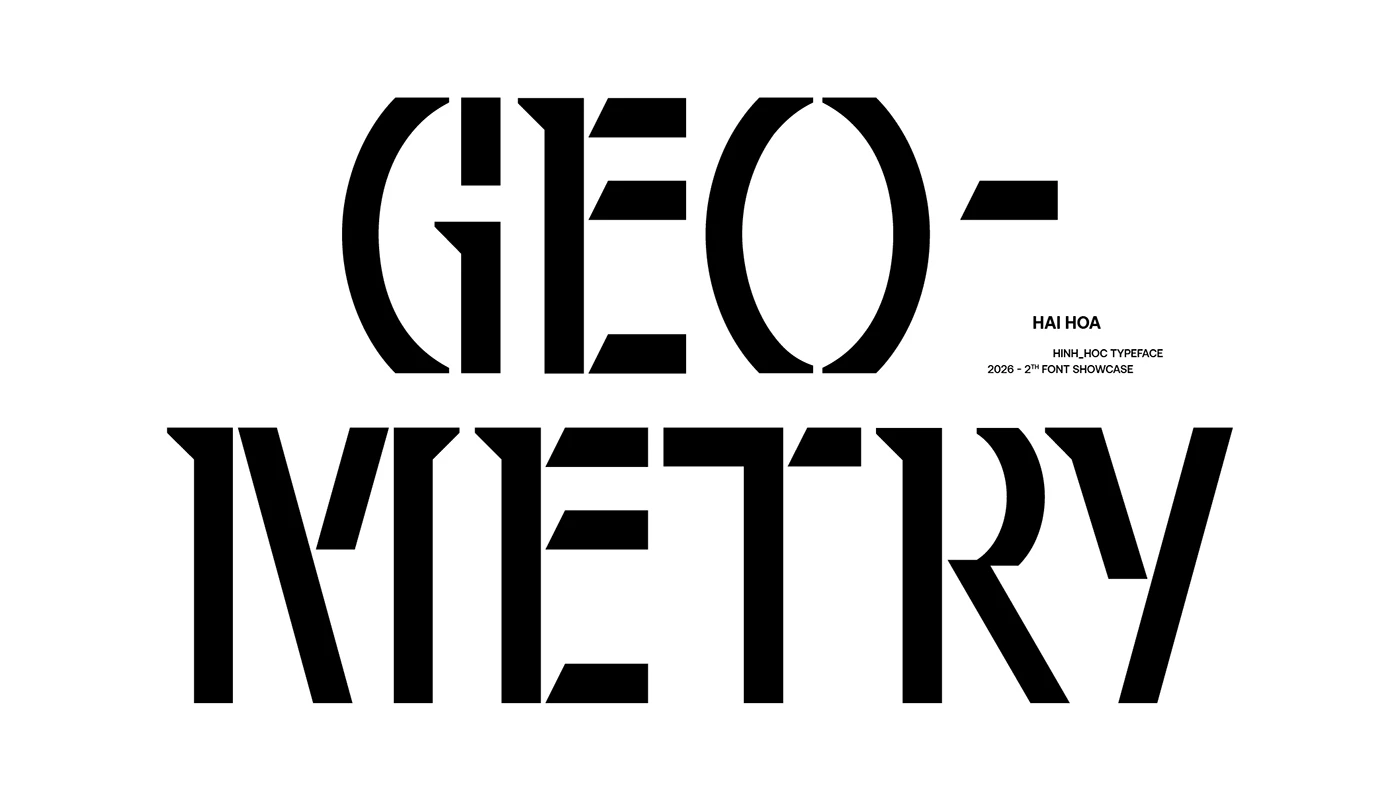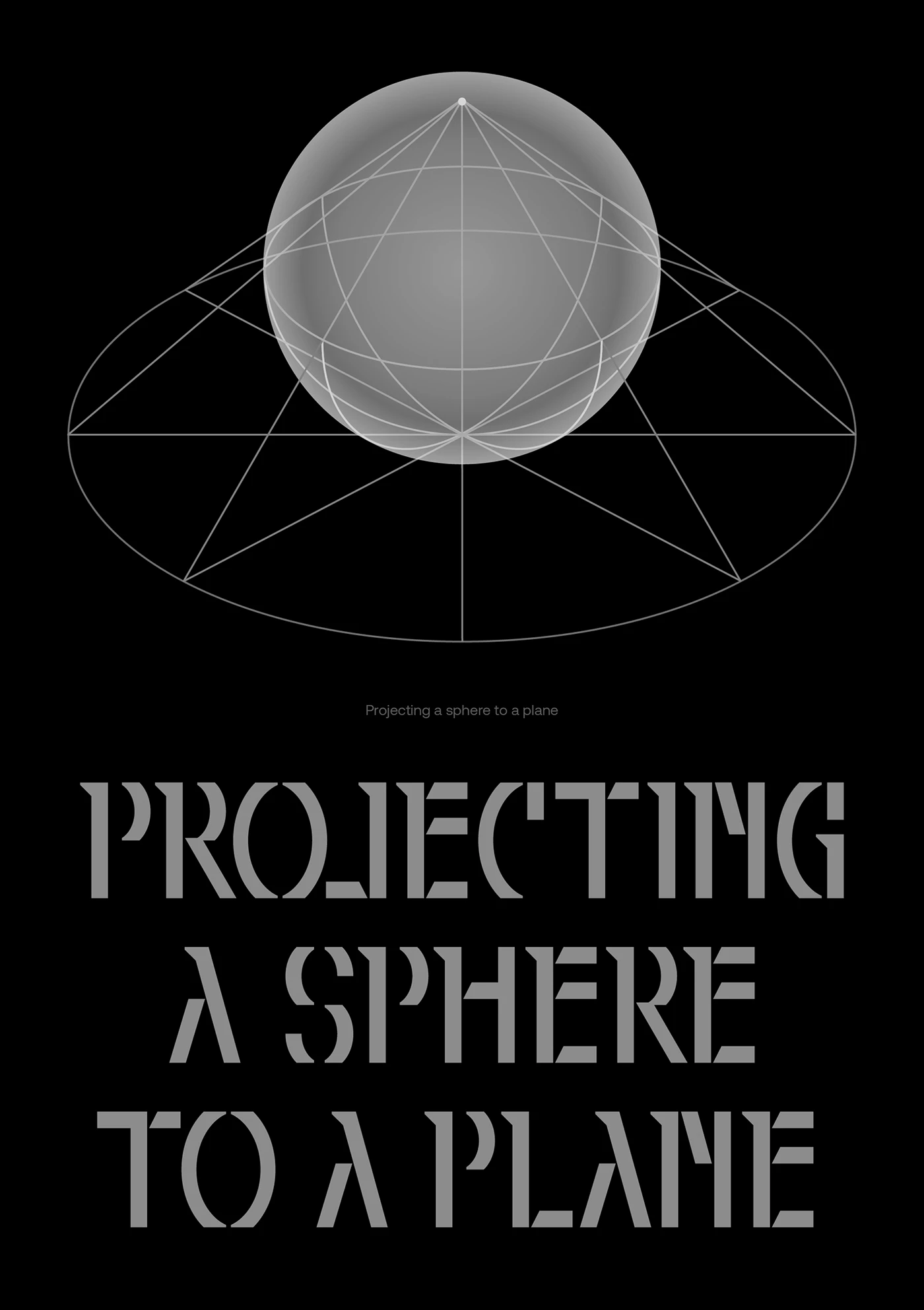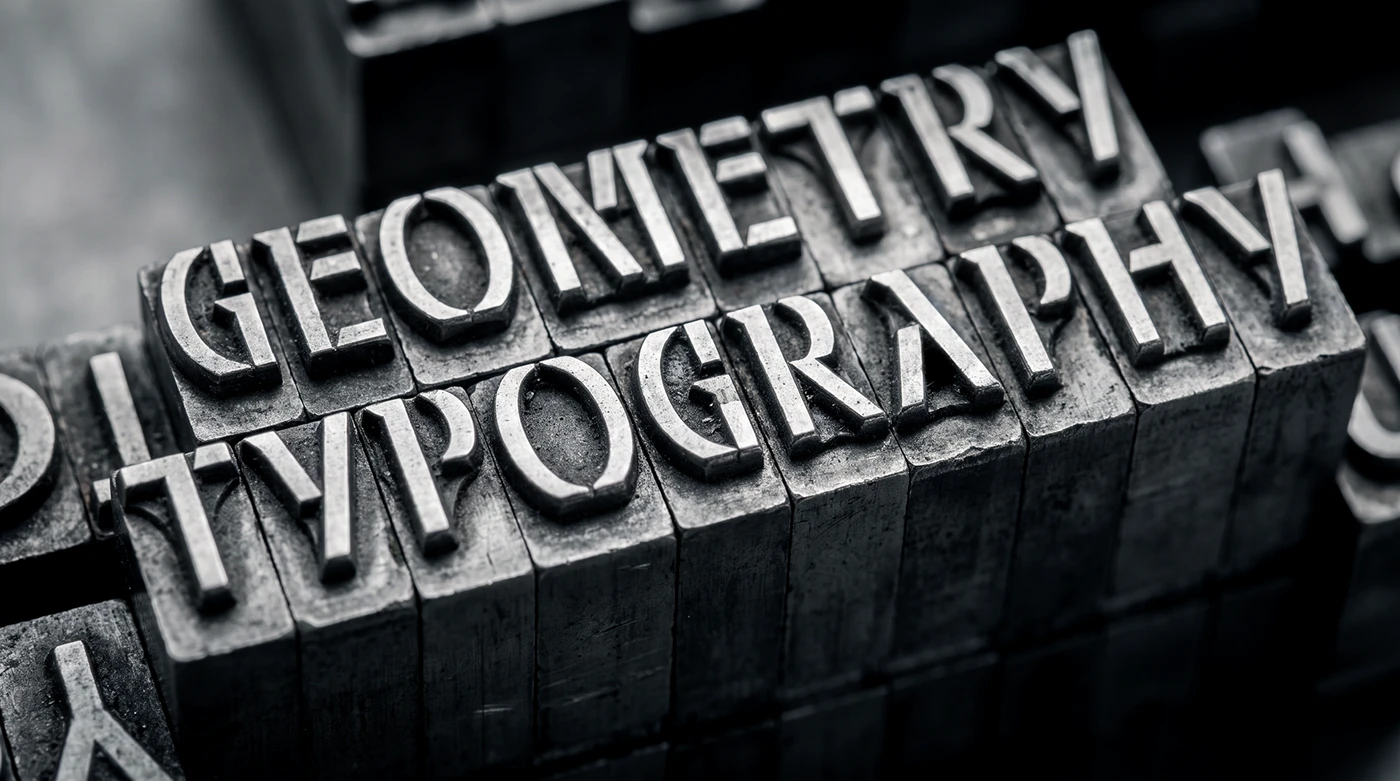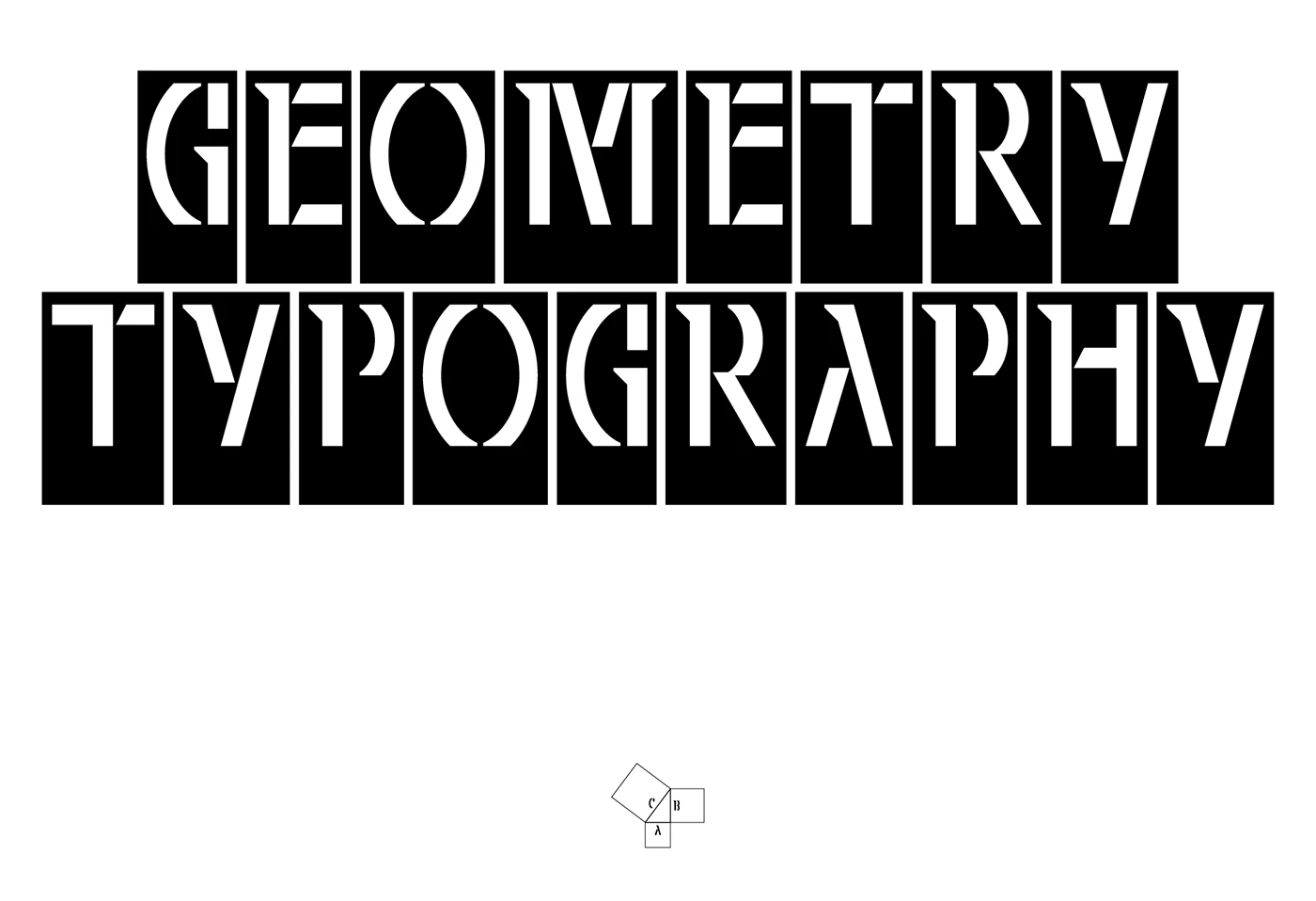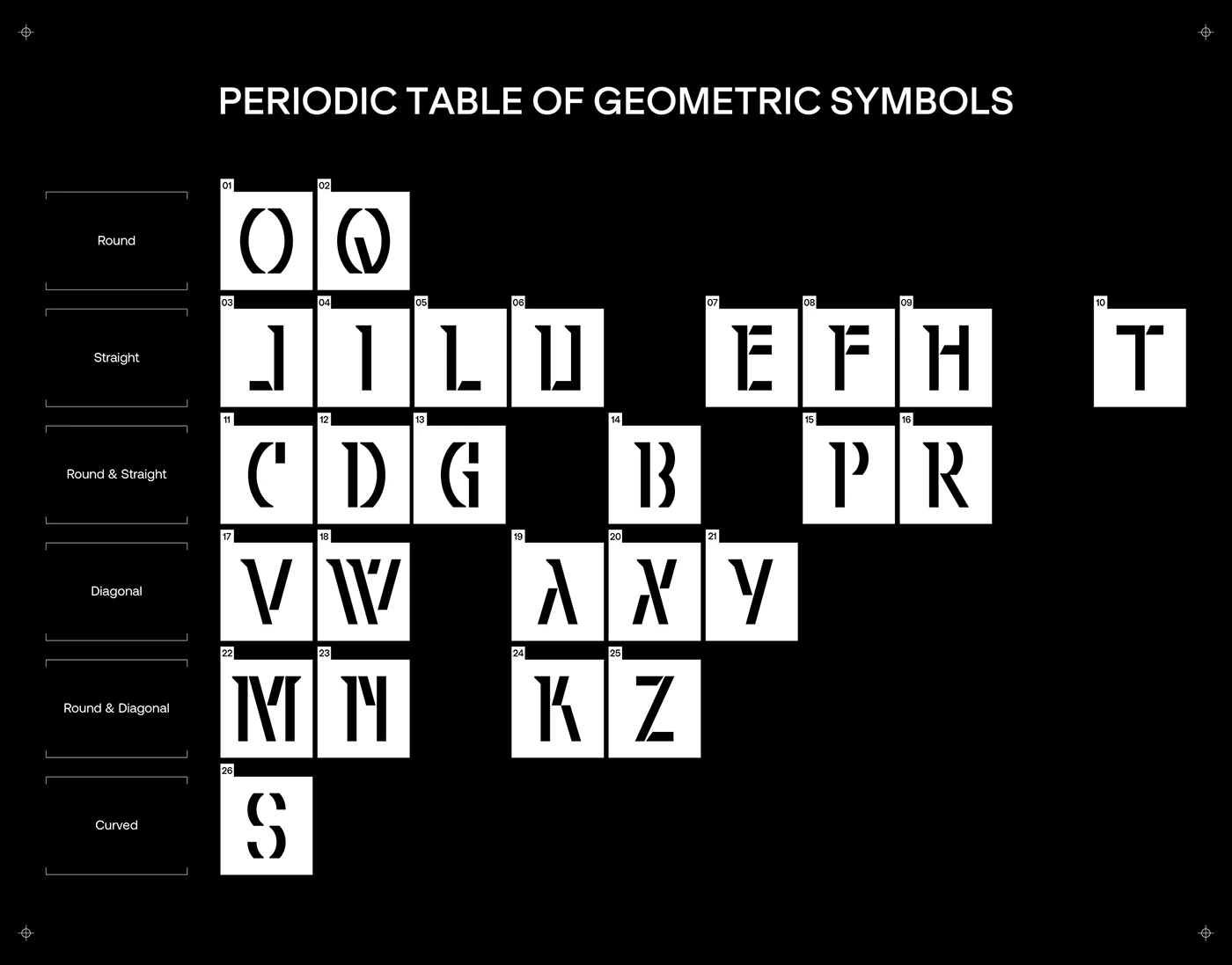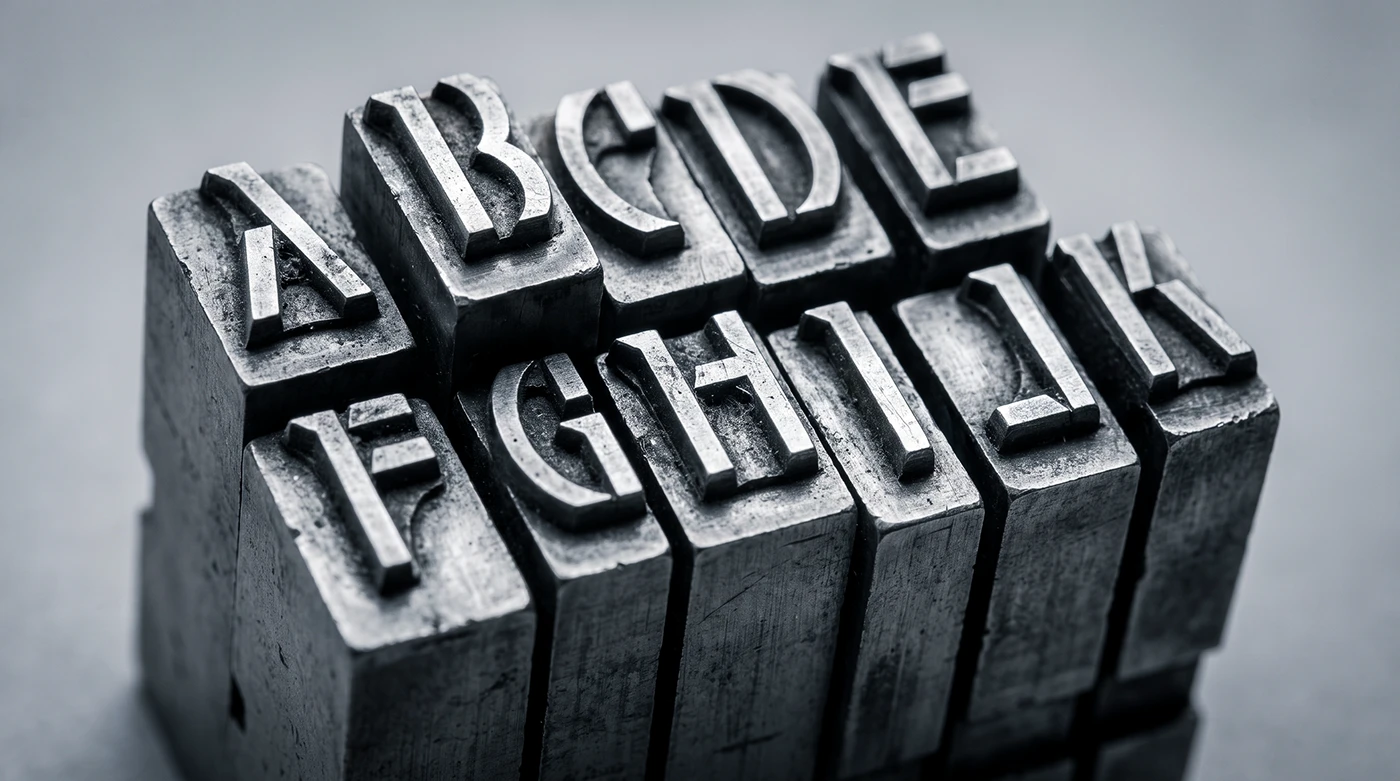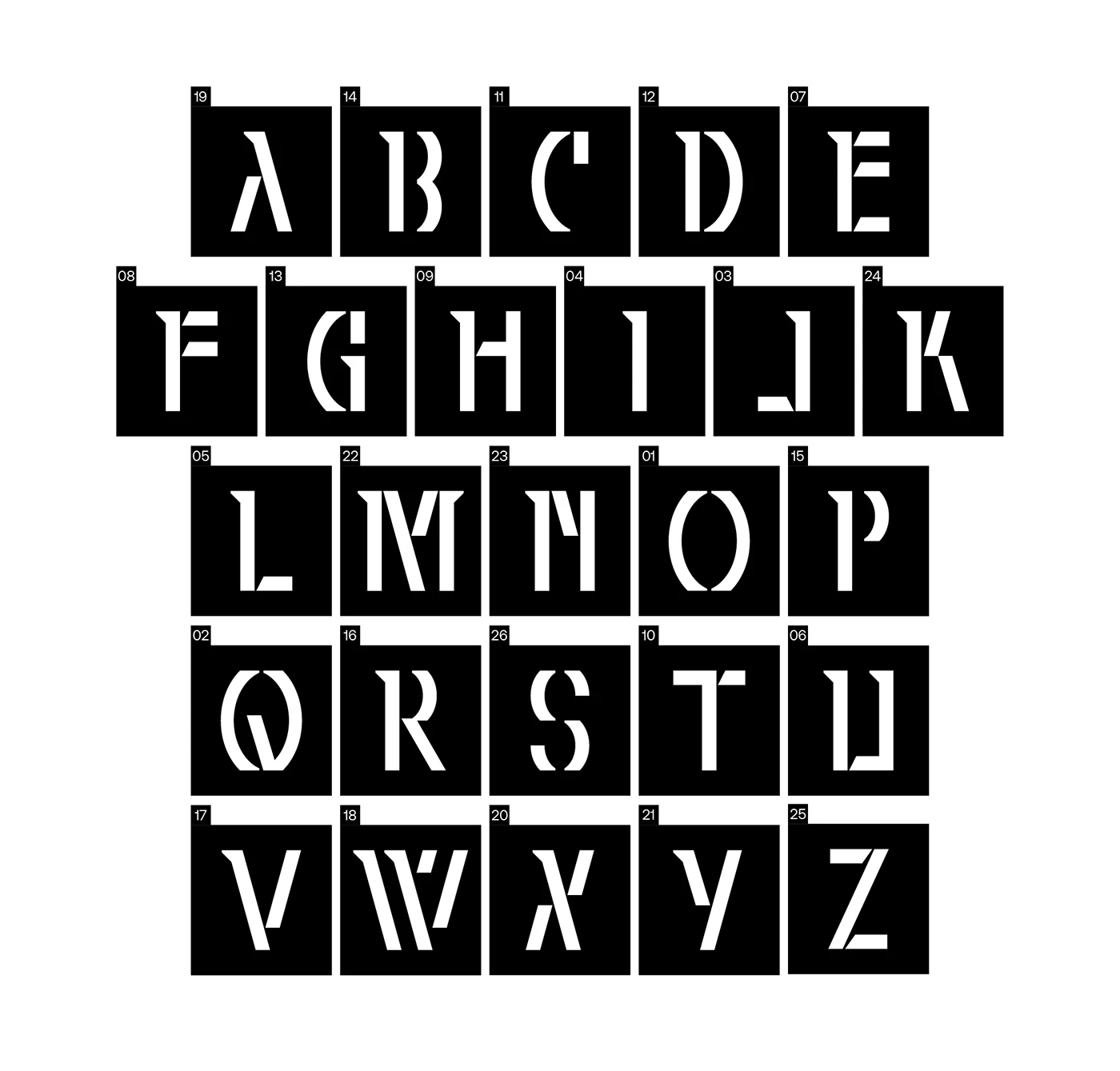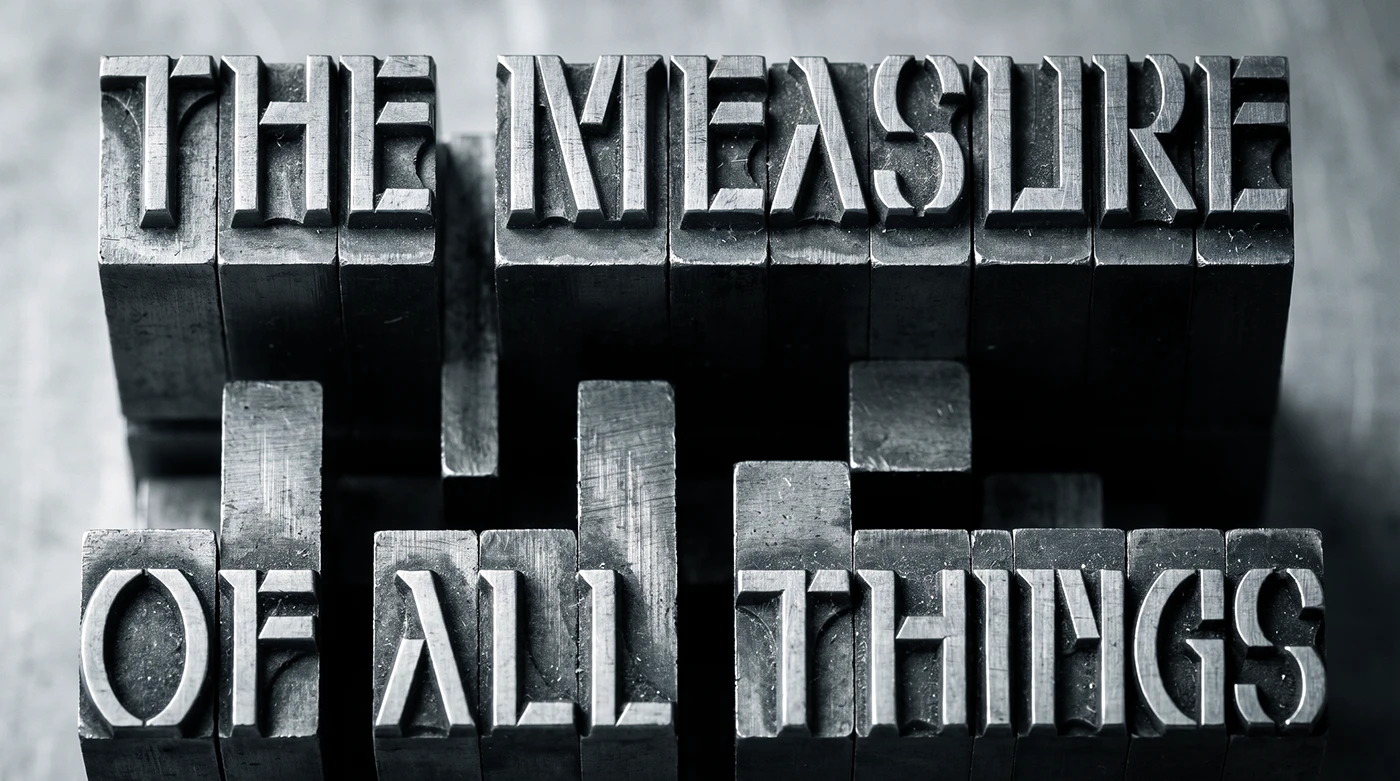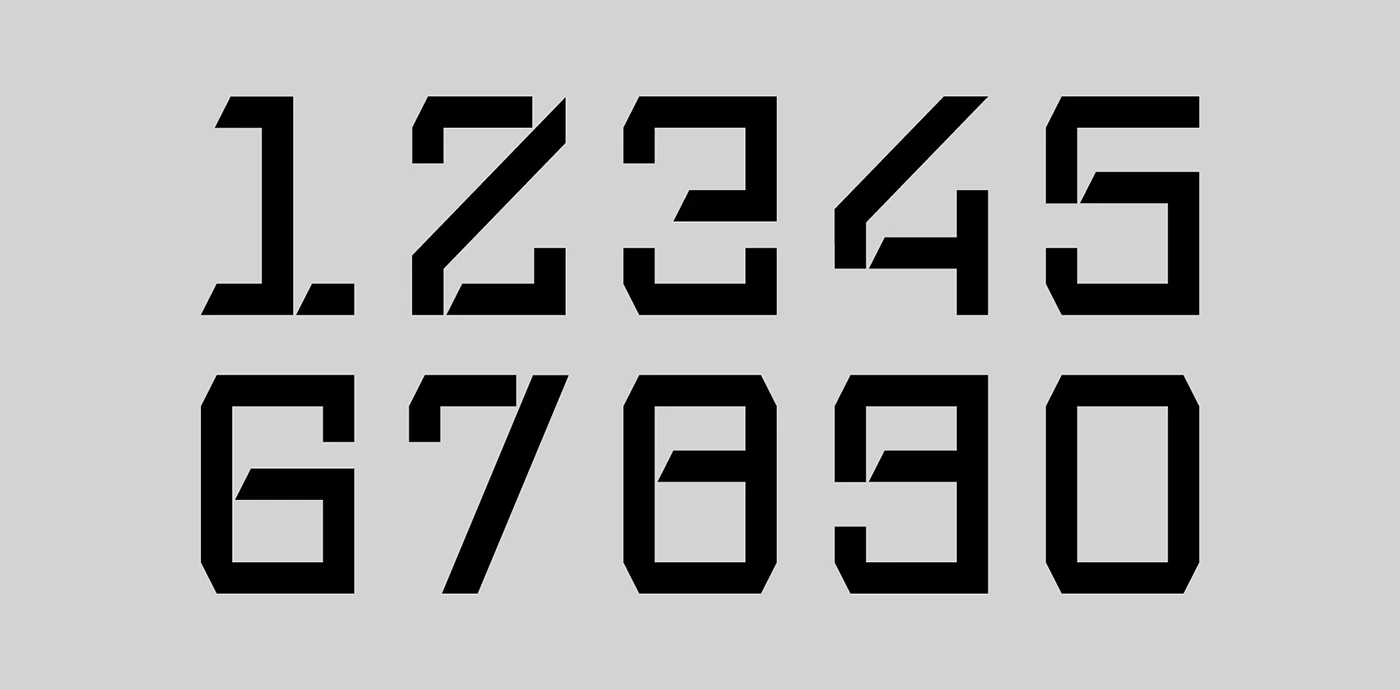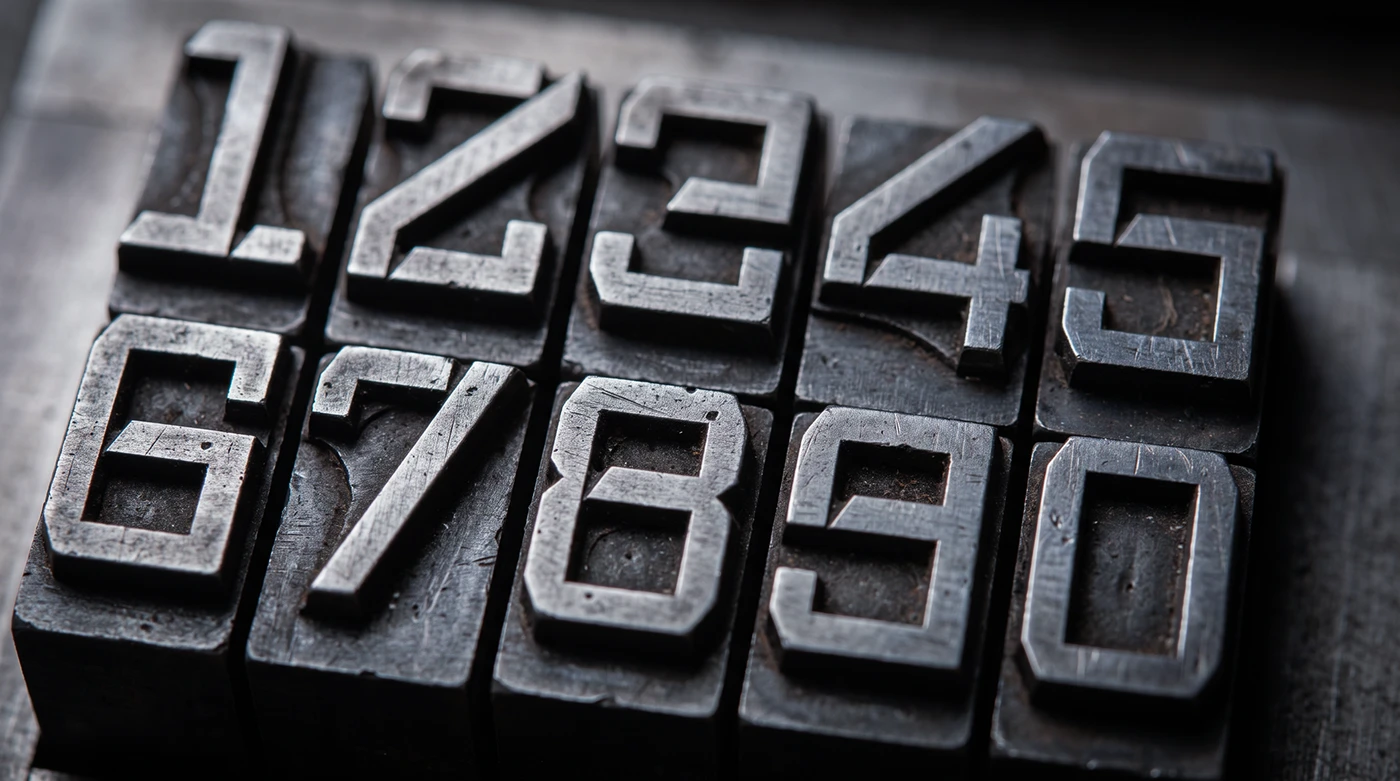
A bold and unconventional experiment called GEOMETRY FONT just scored a prestigious Behance Blue Badge in the Typography category! This is the latest masterpiece by designer Hải Hòa, adding another impressive piece to a growing collection of standout work.
This project leans heavily into a “Neutral Geometry” concept, where the structure of every single letter is built entirely from the most basic shapes—circles, straight lines, diagonals, and curves. It goes way beyond the standard 26-character alphabet, too. The designer pushed boundaries by expanding the project to include a completely unique 24-character Greek character set.
The inspiration behind this design comes from the creator’s high school passion for plane and solid geometry, which clearly left a lasting impression on their approach to forms and structures.
Bringing this polished project to life took a fantastic team effort. Alongside Hải Hòa’s art direction and design, Đăng Hải Phạm delivered stunning visuals, with additional support from Đặng Trung Kiên. The power tools used to turn this concept into reality were Illustrator and Fontlab Studio.
Một thể nghiệm đầy táo bạo và phá cách mang tên HÌNH HỌC FONT (Geometry Font) đã xuất sắc chinh phục chiếc cờ xanh danh giá từ Behance trong hạng mục Typography. Đây là tác phẩm mới nhất của designer Hải Hòa, tiếp nối chuỗi dự án ấn tượng trước đó.
Dự án lần này đi theo concept thuần hình học (Neutral Geometry), nơi cấu trúc của từng chữ cái được xây dựng hoàn toàn từ những dáng hình cơ bản nhất bao gồm đường tròn, đường thẳng, nét chéo và nét cong. Không chỉ gói gọn trong bảng chữ cái Alphabet 26 ký tự tiêu chuẩn, tác giả còn thử nghiệm và phát triển mở rộng thêm cả Hệ ký tự Hy Lạp với 24 ký tự độc đáo.
Nguồn cảm hứng đứng sau thiết kế này xuất phát từ niềm yêu thích đặc biệt dành cho hình học phẳng và hình học không gian thời phổ thông của tác giả, mang lại sự ảnh hưởng sâu sắc đến tư duy tạo hình và hình khối cho đến tận bấy giờ.
Để hoàn thiện dự án chỉn chu này, bên cạnh phần định hướng nghệ thuật và thiết kế của Hải Hòa, còn có sự đóng góp đắc lực về mặt hình ảnh (Visual) từ Đăng Hải Phạm và sự hỗ trợ từ Đặng Trung Kiên. Bộ công cụ chuyên dụng được sử dụng để hiện thực hóa ý tưởng bao gồm Illustrator và Fontlab Studio.